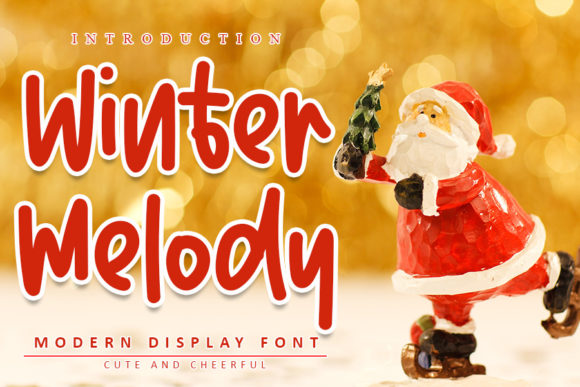
Embrace the grandeur of the Winter Melody font, an exquisitely crafted display typeface that holds the power to transform your business website into a masterpiece. With its elegant curves and celebratory flair, this font invites you to dance with creativity and make an indelible impression on your audience.
Step into a realm of boundless imagination, where Winter Melody's graceful lines flow like a symphony on paper. This font is a conductor of elegance, leading your words to new heights of sophistication. Like snowflakes falling on a crisp winter morning, each letterform exudes a timeless charm that captivates the eye and stirs the soul.
Designed to inspire and ignite your creative passions, Winter Melody is the perfect companion for fashion blogs, lifestyle magazines, and bold branding projects. Its versatility knows no bounds, adapting effortlessly to logos, social media posts, and even your most daring design experiments.
With Winter Melody as your ally, you'll craft designs that make a grand entrance, enchanting and enthralling your audience. Its carefully crafted details add a touch of enchantment to every project, turning ordinary words into extraordinary expressions of your brand identity.
So seize the moment, let your creativity soar, and embrace the Winter Melody font. It's time to compose a visual masterpiece that resonates with your audience and propels your business website to new heights of success.
Key features:
* Designed for superior readability on screens, ensuring a seamless user experience on all digital platforms.
* Exquisitely crafted letterforms with subtle nuances that evoke a sense of sophistication and elegance.
* A comprehensive set of characters, including uppercase, lowercase, numbers, and symbols, providing you with limitless creative possibilities.
* Carefully balanced kerning and leading, optimizing the visual harmony and legibility of your text.
* Extensive language support, enabling you to captivate a global audience with your compelling designs.